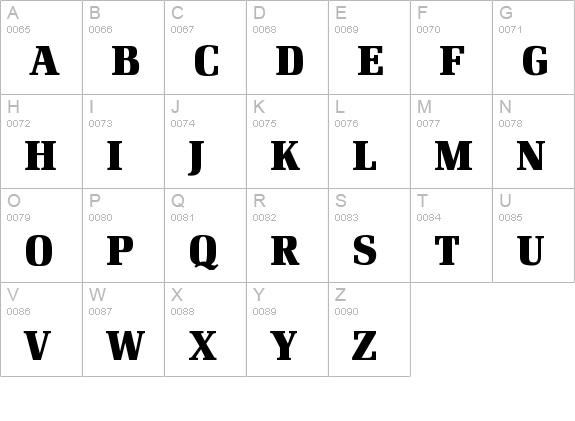
FrenchcarDemiBold Font Details
FrenchcarDemiBold is a stunning and elegant font that exudes sophistication and modernity. This versatile typeface features a unique blend of classic French design elements with a contemporary twist, making it perfect for a wide range of design projects. With its bold and eye-catching appearance, FrenchcarDemiBold is sure to make a statement in any layout or composition. Whether you are designing a logo, poster, or website, this font will add a touch of elegance and flair to your work. Best of all, FrenchcarDemiBold is available for free download at FontsMarket.com. Take advantage of this amazing offer and enhance your projects with the beauty and charm of FrenchcarDemiBold font today!